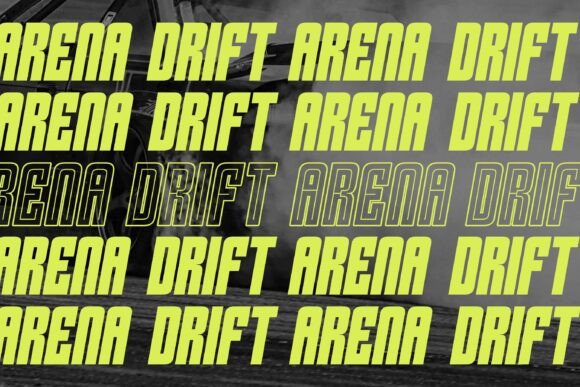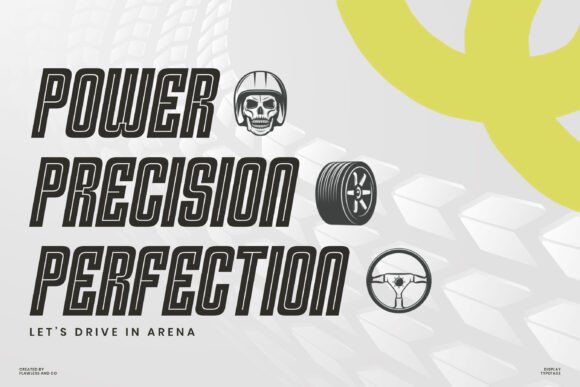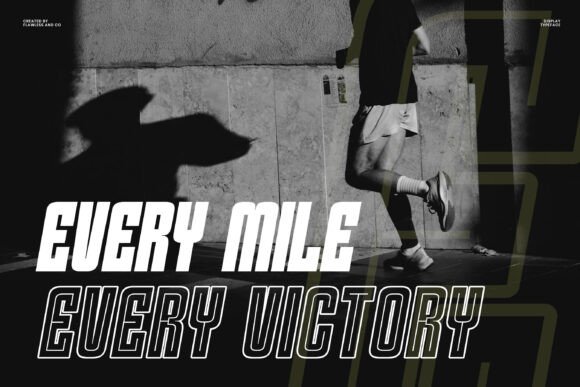
Burst Speed Font
Burst Speed is a bold and aggressivesans serif typeface crafted for speed, energy, and high-impact visuals. Inspired by motorsports and action-packed competition, this modern sans serif font features slanted angles and a strong geometric build, making it perfect for racing posters, automotive branding, esports graphics, and sporty apparel. Whether you’re designing for speedways or digital arenas, Burst Speed will push your typography to the limit.